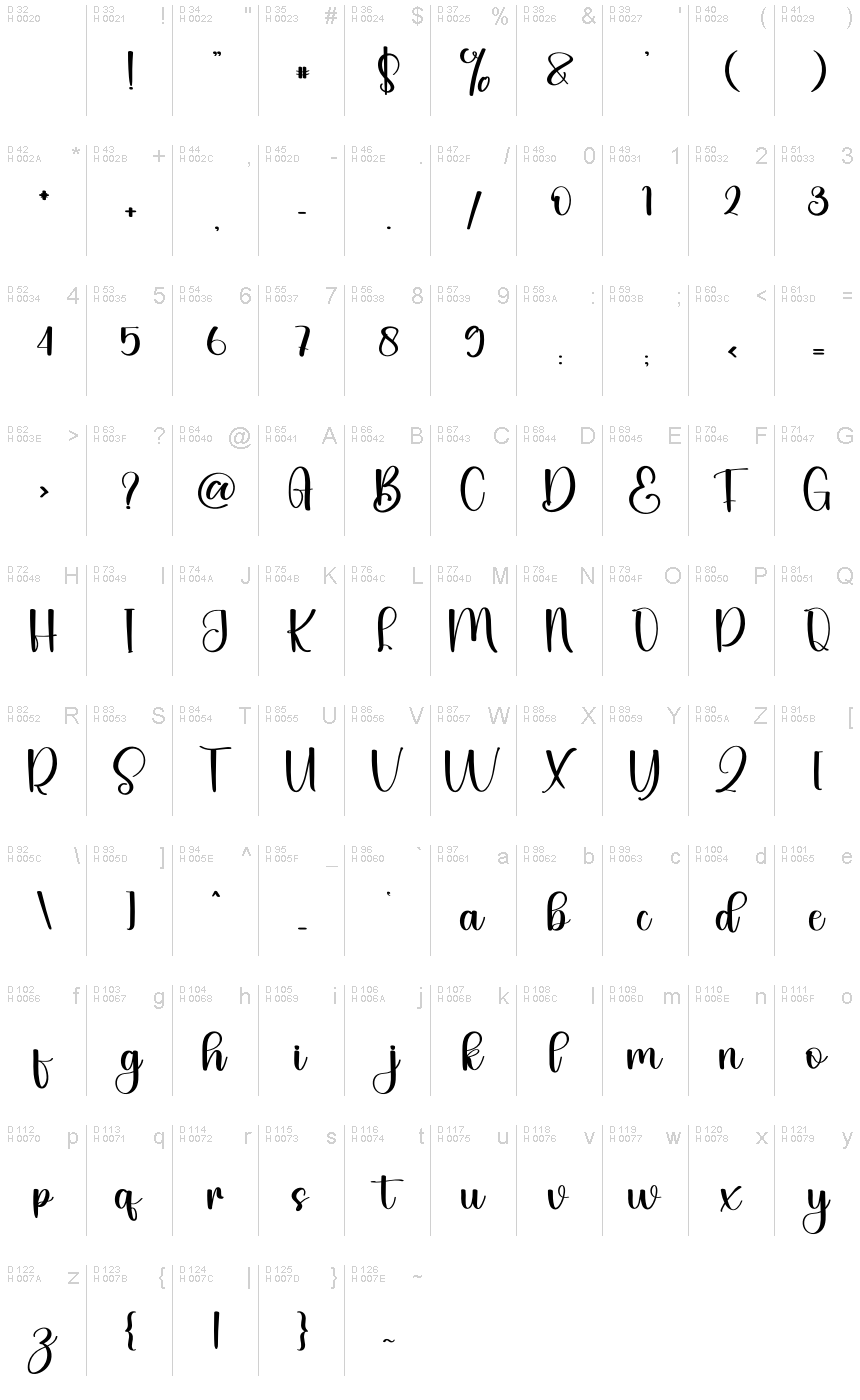
Night Vacation
Night Vacation by FreshtypeINK captivates with its distinct handwritten charm, bringing a whimsical and fluid character to the forefront. The prominent cursive flow, coupled with the bold strokes, exudes an inviting warmth and personal touch. Each letter elegantly loops into the next, creating a seamless visual dance that evokes creativity and spontaneity.
This font shines in contexts where personality and expressiveness are key—be it in wedding invitations, greeting cards, or branding for artisanal products. Night Vacation effortlessly infuses any project with effortless elegance and heartfelt emotion. Its artistic flair makes it equally suited for social media graphics seeking that extra pinch of authenticity and charm.